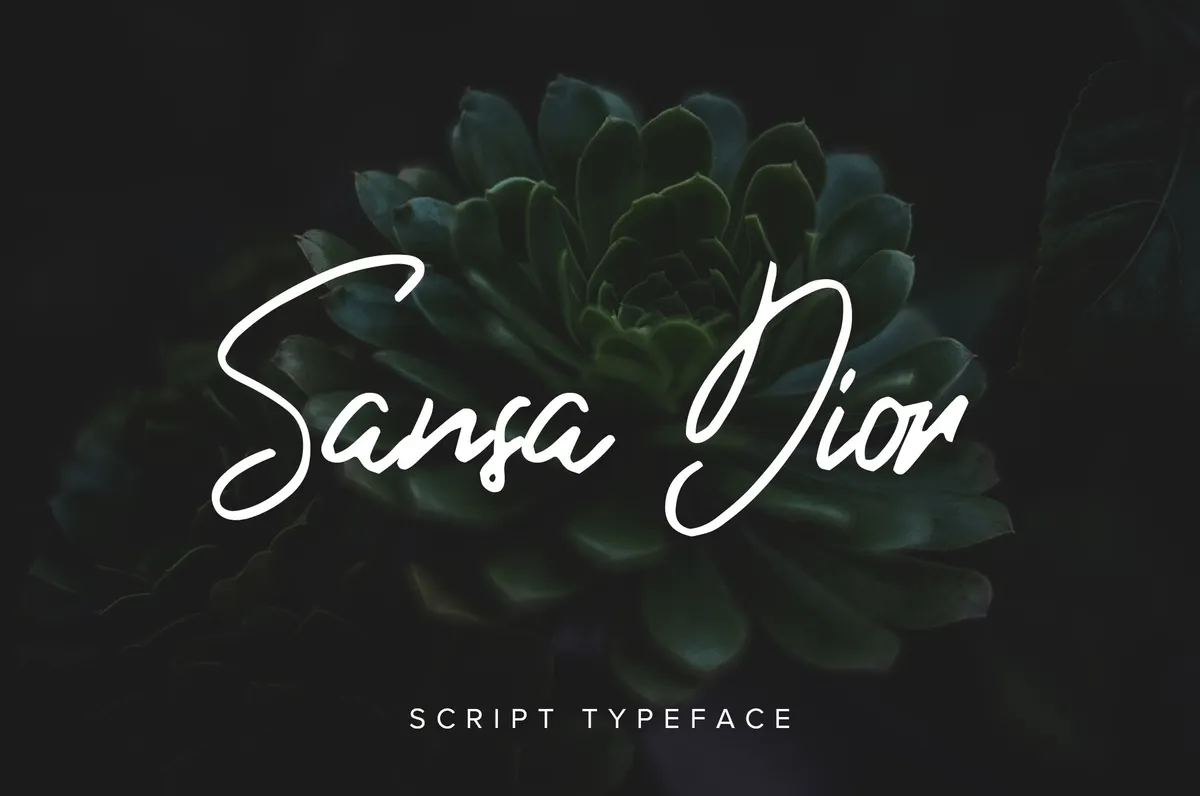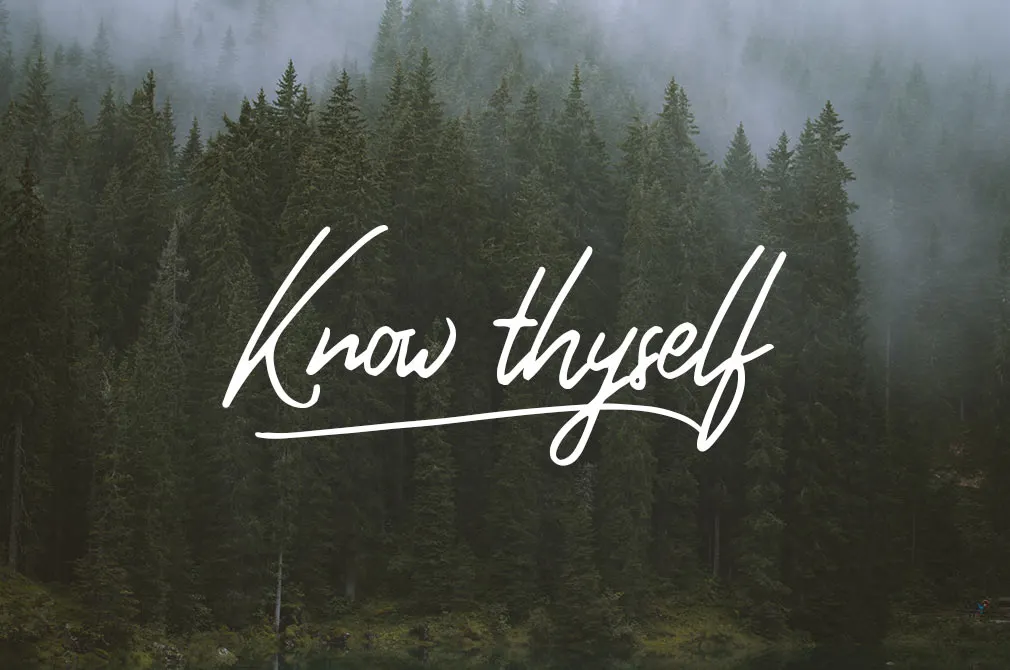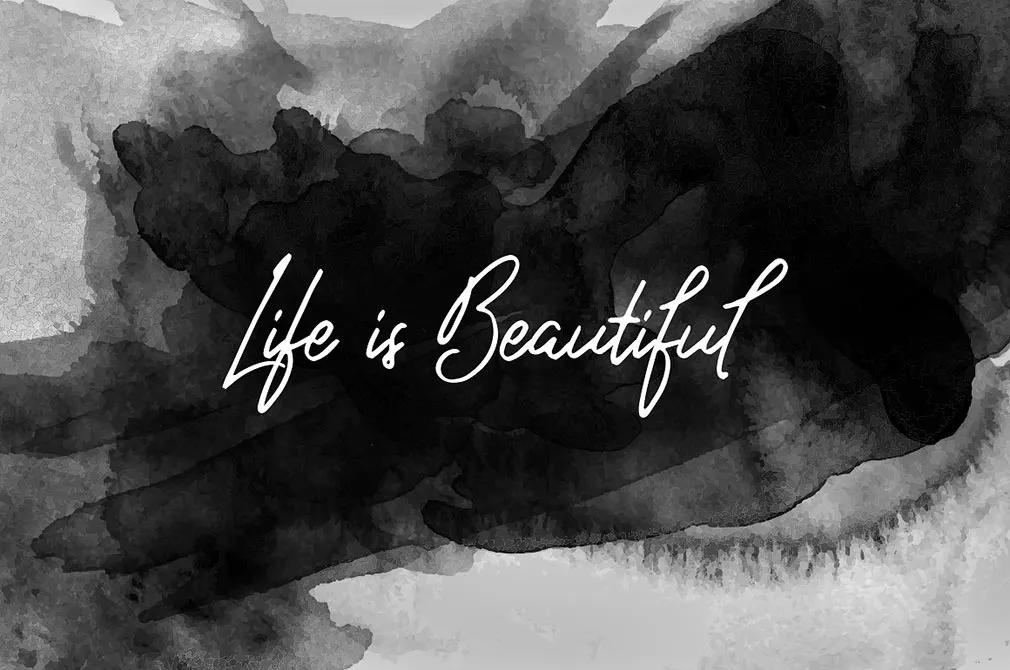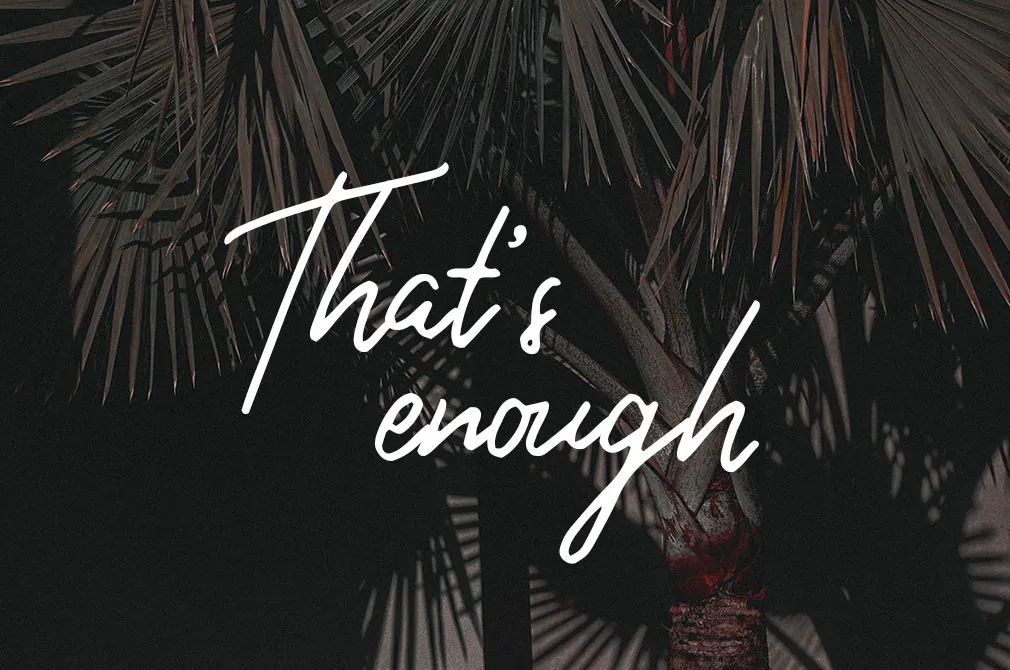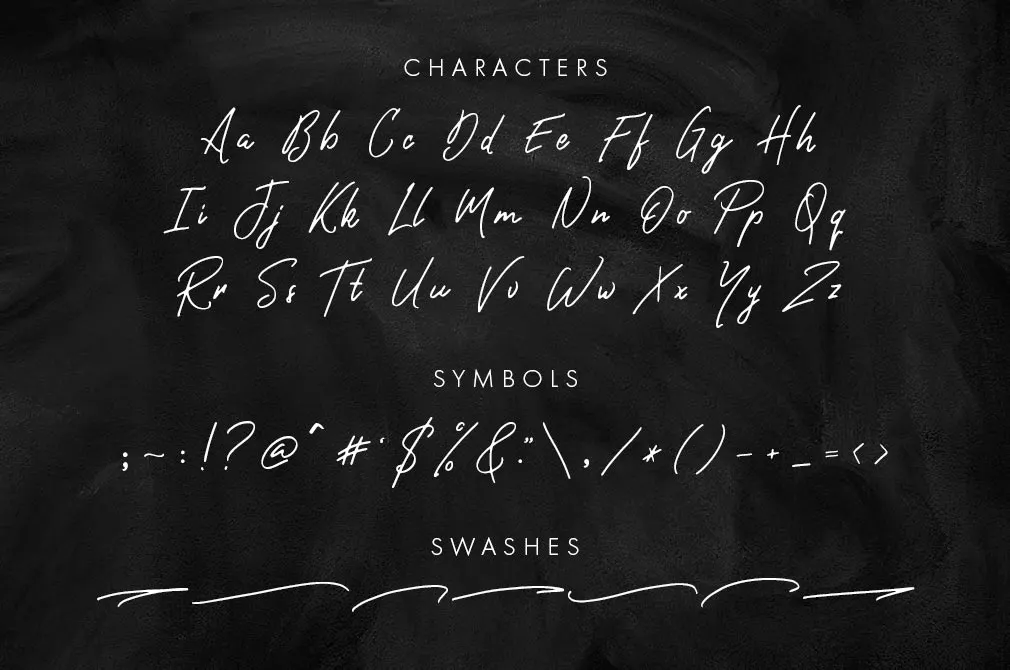
Sansa Dior Script Typeface
As a designer, you should feel confident at any stage of your work, and were excited to provide you with a script font, precisely crafted to showcase your strong, creative nature.
Fresh and charming, Sansa Dior is a hand-drawn font you will appreciate a lot in your collection, and therere no concerns about it at all. Indeed, with multilingual characters, stylistic alternates, and swashes, it may perfectly complement your invitations, logos, branding designs, clothing, and posters. And its ability to enter in vibrant combinations with companion typefaces is gonna simplify your workflow, whats an unbeatable addition to a long list of its features.